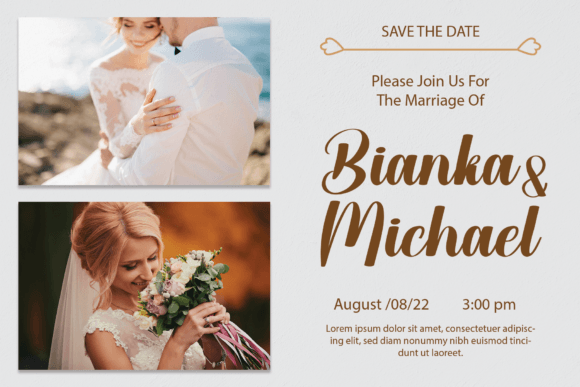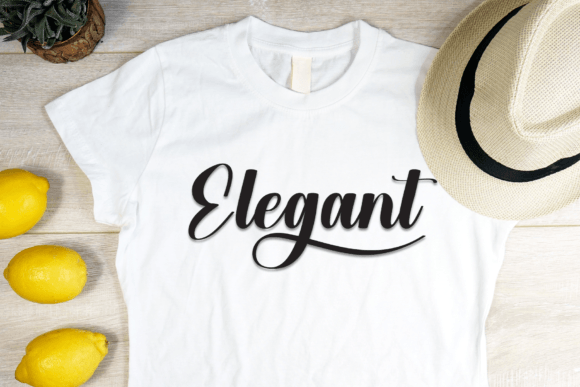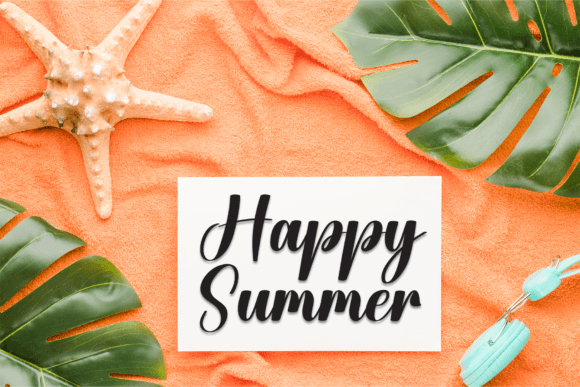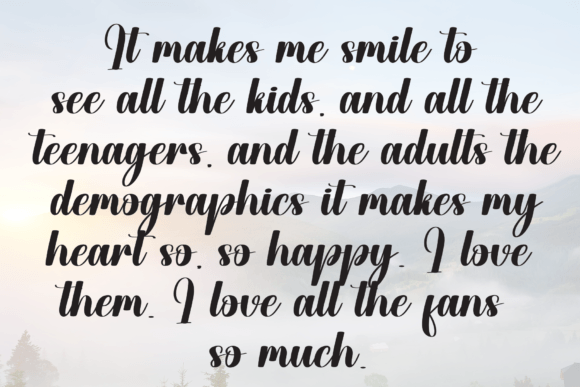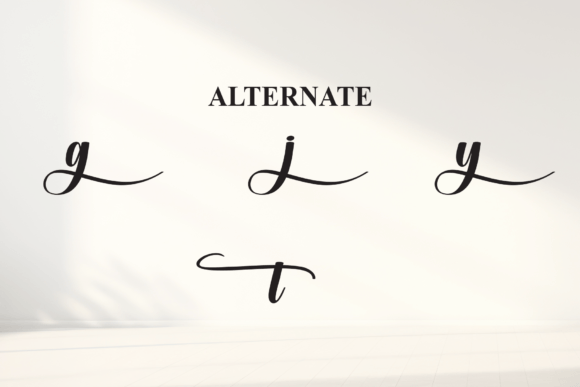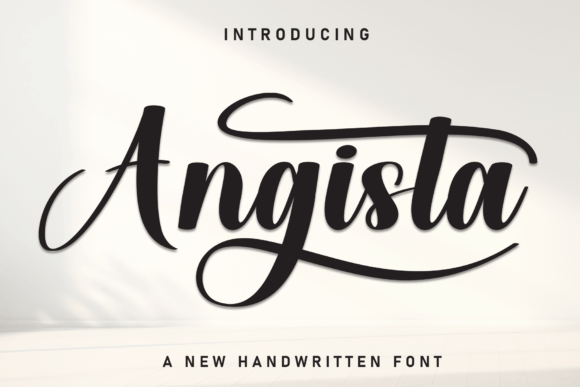
Introducing Angista Font: Elevate Your Designs with Elegance and Sophistication
In the world of typography, few fonts manage to capture the essence of elegance and sophistication as effectively as Angista. This stylish and incredibly elegant script font has been making waves in the design community, and for good reason. Angista is the perfect addition to any project that demands a touch of refinement and a dash of personality. Whether you’re working on wedding invitations, thank you cards, quotes, greeting cards, logos, business cards, or any other design that needs a handwritten touch, Angista is the ideal choice.
The Characteristics of Angista Font
Angista is more than just a font; it’s an experience. Its fluid strokes and graceful curves bring a sense of movement and dynamism to any design. The font’s elegant and refined appearance makes it perfect for projects that require a sophisticated look. Here are some key characteristics that make Angista stand out:
- Elegant and Refined: Angista’s design is characterized by its elegant and refined appearance, making it perfect for projects that demand sophistication.
- Fluid Strokes: The font’s fluid strokes and graceful curves bring a sense of movement and dynamism to any design.
- Versatile: Angista is incredibly versatile and can be used for a wide range of design projects, from wedding invitations to business cards.
- Handwritten Touch: The font’s handwritten touch adds a personal and unique element to any design, making it perfect for projects that require a human touch.
Uses of Angista Font
Angista’s versatility is one of its most significant advantages. The font can be used for a wide range of design projects, including:
- Wedding Invitations: Angista’s elegant and refined appearance makes it perfect for wedding invitations, adding a touch of sophistication and romance to your designs.
- Thank You Cards: The font’s handwritten touch makes it ideal for thank you cards, adding a personal and unique element to your designs.
- Quotes: Angista’s fluid strokes and graceful curves make it perfect for quotes, bringing a sense of movement and dynamism to your designs.
- Greeting Cards: The font’s elegant and refined appearance makes it perfect for greeting cards, adding a touch of sophistication and elegance to your designs.
- Logos: Angista’s unique and stylish design makes it perfect for logos, adding a touch of personality and sophistication to your brand.
- Business Cards: The font’s elegant and refined appearance makes it perfect for business cards, adding a touch of professionalism and sophistication to your designs.
Why Designers and Crafters Love Angista Font
Designers and crafters love Angista for many reasons. Here are some of the key benefits of using Angista:
- Ease of Use: Angista is incredibly easy to use, even for designers who are new to script fonts.
- Customization: The font’s unique design makes it easy to customize, allowing designers to add their own personal touch to their designs.
- Time-Saving: Angista’s versatility and ease of use make it a time-saving solution for designers, allowing them to focus on other aspects of their projects.
- Unique Designs: The font’s handwritten touch and elegant design make it perfect for creating unique and eye-catching designs that stand out from the crowd.
Tips for Using Angista Font Effectively
Here are some tips for using Angista effectively in your designs:
- Pair with Other Fonts: Angista pairs well with other fonts, so don’t be afraid to experiment with different combinations to find the perfect look for your design.
- Use for Headlines: Angista’s elegant and refined appearance makes it perfect for headlines, adding a touch of sophistication and elegance to your designs.
- Add a Personal Touch: The font’s handwritten touch makes it perfect for adding a personal and unique element to your designs.
- Experiment with Colors: Angista looks great in a variety of colors, so don’t be afraid to experiment with different color schemes to find the perfect look for your design.
In conclusion, Angista is a stylish and incredibly elegant script font that is perfect for designers and crafters who want to add a touch of sophistication and elegance to their designs. Its versatility, ease of use, and unique design make it a valuable addition to any design project. Whether you’re working on wedding invitations, thank you cards, quotes, greeting cards, logos, business cards, or any other design that needs a handwritten touch, Angista is the ideal choice.